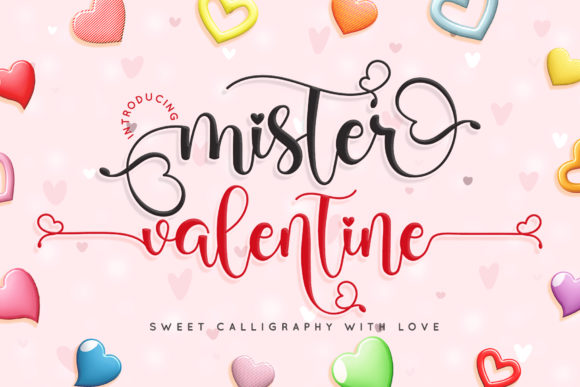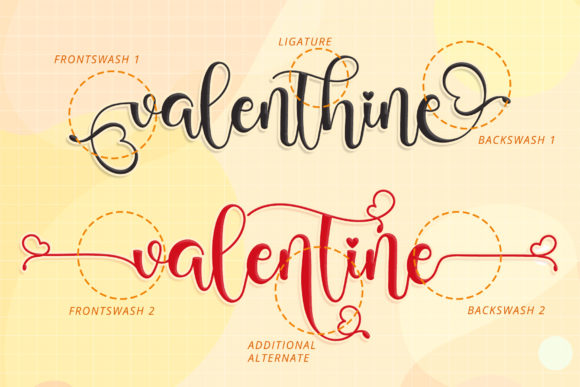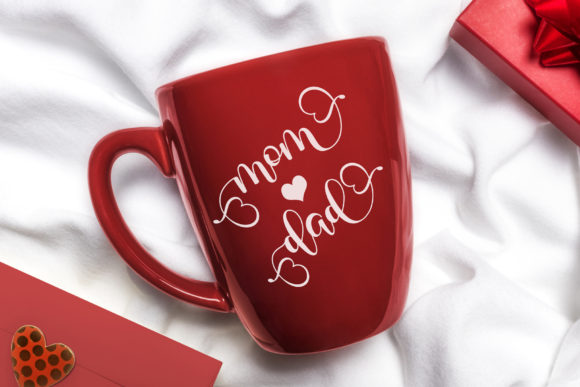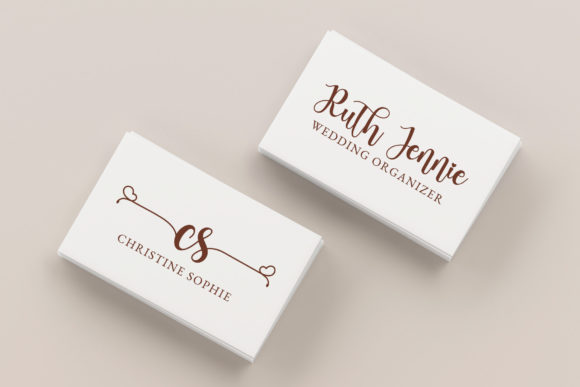
Mister Valentine Font: Cute Calligraphy Script for Wedding & DIY Designs!
About the Mister Valentine Font
Experience the unique personality of Mister Valentine Font, a font designed for impact. Mister Valentine is romantic, cute, and bouncy script font with a romantic touch. This font is so perfect to be used for many designs, such as wedding invitation, greeting card, social media quotes, branding, logo, and many more.
Mister Valentine’s playful energy makes it ideal for projects requiring a touch of romantic whimsy. It excels in headlines, short text blocks on invitations or social media, and branding for products targeting a younger, feminine demographic. Think artisanal chocolates, boutique stationery, or a children’s book. Avoid using it for large bodies of text or UI elements; its bouncy nature can hinder readability in extended paragraphs.
Pairing Mister Valentine effectively requires considering its lightheartedness. A clean sans-serif like Lato or Open Sans provides a sophisticated counterpoint, grounding the design. For a more vintage feel, a serif like Playfair Display adds elegance without overwhelming the script’s charm. Conversely, pairing it with a geometric sans-serif can create a modern, slightly unexpected contrast.
Its core personality is undeniably romantic and cheerful, though it maintains a level of sophistication suitable for upscale branding. Overuse can lead to a cluttered feel, so use it sparingly as an accent to achieve the desired effect.
Mister Valentine Font Usage Examples
Mister Valentine Font Example